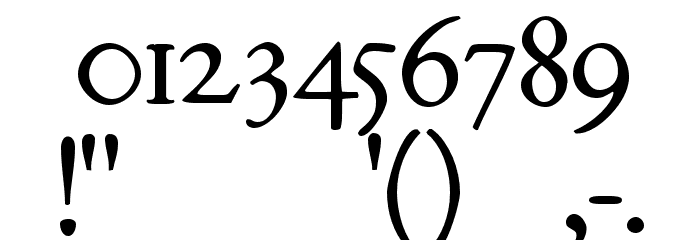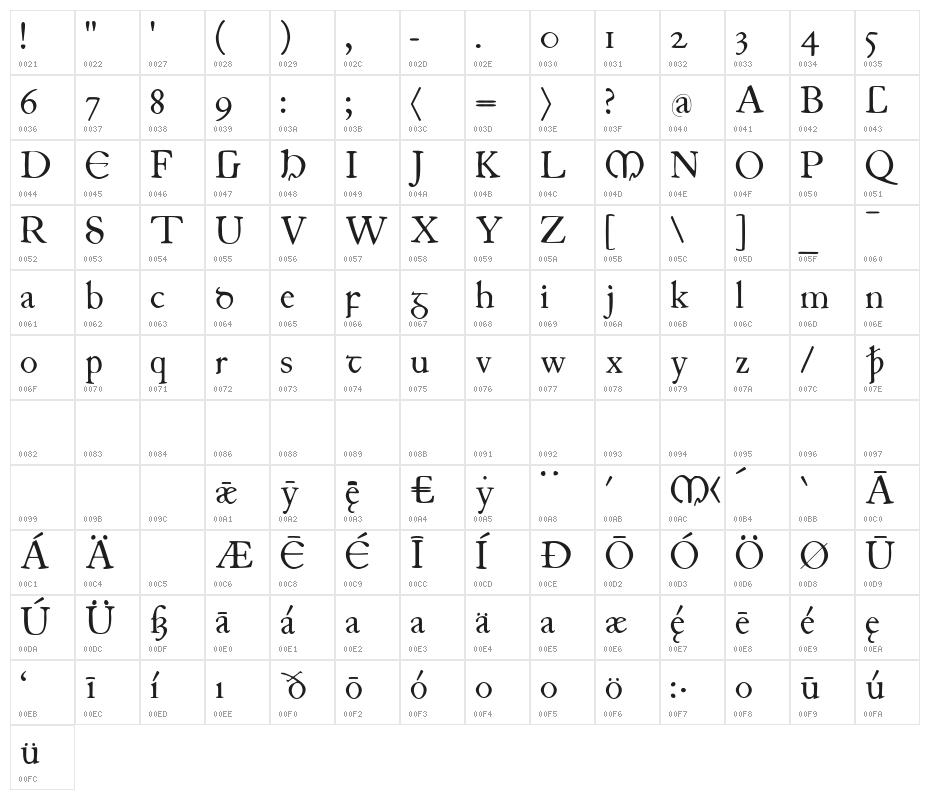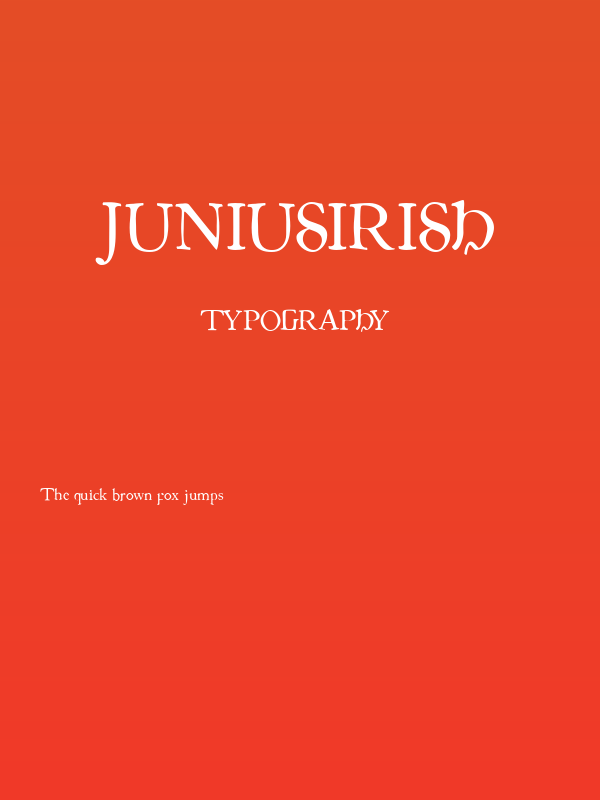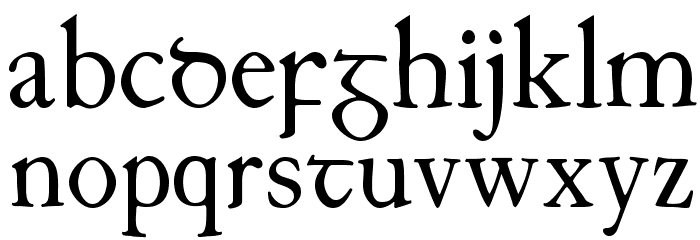
JuniusIrish Font
JuniusIrish Description
This font exhibits a unique blend of traditional and modern elements, characterized by its distinctively curved and slightly exaggerated serifs. The uppercase letters have a strong presence with their bold strokes and elegant curves, while the lowercase letters maintain a consistent flow with a touch of whimsy. The numerals are designed with a classic touch, featuring rounded edges that complement the overall style. Special characters are crafted with attention to detail, adding to the font's versatility. This font is ideal for projects that require a touch of elegance and sophistication.
| Proposed Projects | Ideal for branding, editorial design, invitations, and decorative headlines. |